The bundle is called “The Branding Font Bundle.”
29 sets of amazing fonts in a variety of syles plus bonuses like illustrations, graphics & logo templates are included.
What is included in “The Branding Font Bundle?”
Let’s dive into the details of The Branding Font Bundle.
Black Gold – VPcreativeshop
Black Gold is sophisticated font with tons of alternative glyphs, ornaments, nature elements, photoshop styles, watercolours, ink marks and multilingual support. It’s a very versatile font that works great in large and small sizes.
Black Gold is perfect for branding projects, home-ware designs, product packaging, magazine headers – or simply as a stylish text overlay to any background image.
Black Gold serif font + Extras
Brume – Creativemedialab
“Easy to read, modern and elegant look but stylist”, this will be the first words that your client says to your design using this font. Comes with uppercase and lowercase. It has many alternates character with nice curve that you can arrange to create a nice logo lettering, or use it as a display face on a poster and add a few alterations to it to make a beautiful eye catching words.
Each characters are carefully crafted with clean path lines.
Brume font is best for logo lettering, headlines, product packaging, tshirt design, wedding theme, poster, book cover, wedding invitation, and more
Brume Font
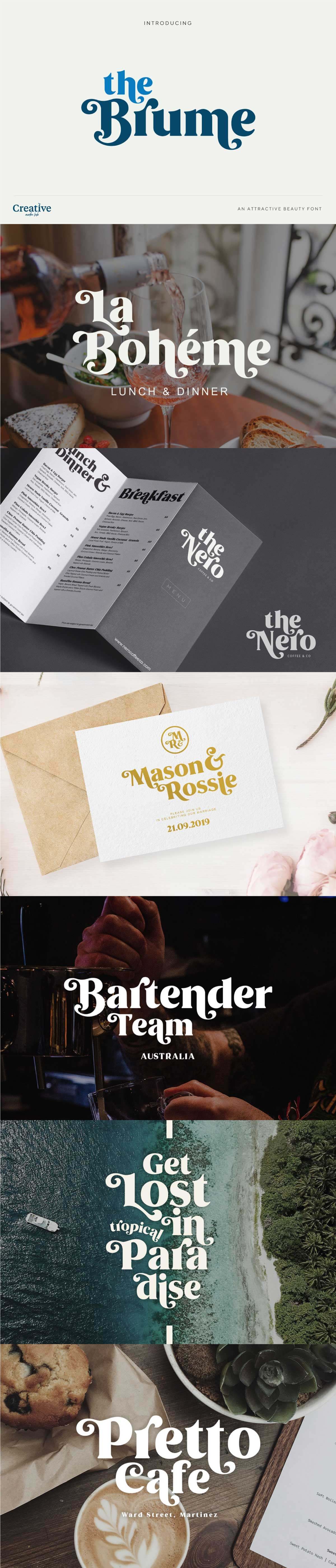
Belinda Tamira – VPcreativeshop
Belinda Tamira is luxury, clean font duo with total of 6 font styles, ligatures and multilingual support. It’s a very versatile font that works great in large and small sizes.
Belinda Tamira is perfect for branding projects, home-ware designs, product packaging, magazine headers – or simply as a stylish text overlay to any background image.
Belinda Tamira – Font duo + 20 Logos
Kindel Serif – VPcreativeshop
Kindel Serif is modern, sophisticated typeface with total of 4 font styles, loaded with ligature glyphs and multilingual support. It’s a very versatile font that works great in large and small sizes.
Kindel Serif is perfect for branding projects, home-ware designs, product packaging, magazine headers – or simply as a stylish text overlay to any background image.
Kindel – Serif Typeface | 4 styles
Modern Space – Floral Studio
MODERN SPACE is a Clean, Modern and Minimalist display font that carefully designed for all graphic designers.
MODERN SPACE is also completely perfect for any creative graphic design needs such as Logo Design, Tittle, ads, Layout magz, apps and many more.
MODERN SPACE FONT
Fabulist – VPcreativeshop
Fabulist is clean, modern font with tons of alternative glyphs, ligatures and multilingual support. It’s a very versatile font that works great in large and small sizes.
Fabulist is perfect for branding projects, home-ware designs, product packaging, magazine headers – or simply as a stylish text overlay to any background image.
Fabulist – Display font
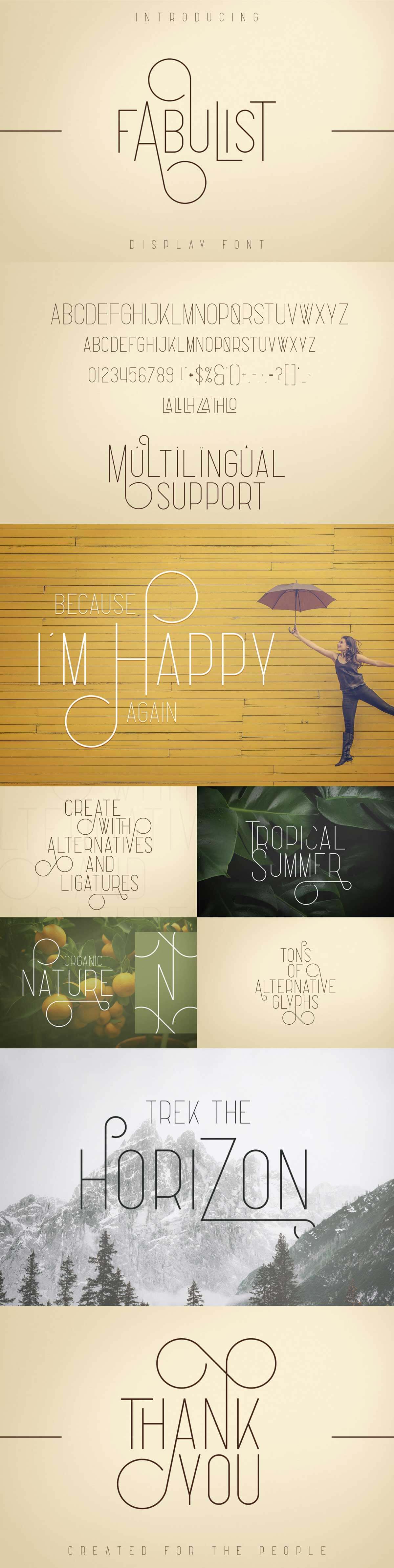
29 types of branding font sets are included.